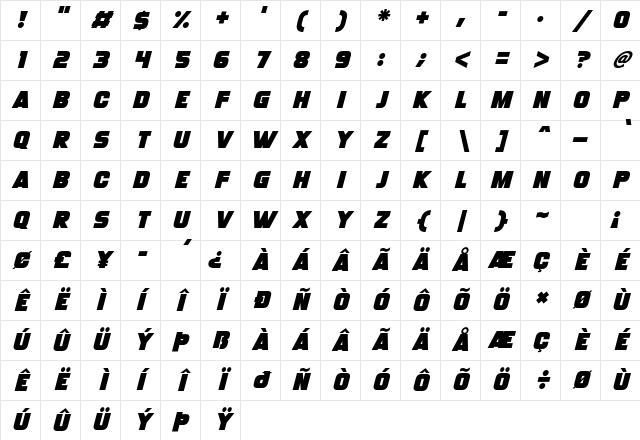
Monster Bites Italic Free Font
Monster Bites Italic
Monster Bites Family
Monster Bites Italic
Complete Monster Bites Italic glyph index. Displaying only characters natively supported by Monster Bites Italic font.
Design Context for Monster Bites
Monster Bites is a composed and adaptable typeface that performs quietly and consistently across a wide range of design contexts. The slanted form adds forward momentum and visual energy.
Pro Tip: Use Monster Bites for emphasis, pull quotes, and subheadings where its slanted energy can add rhythm to the layout.